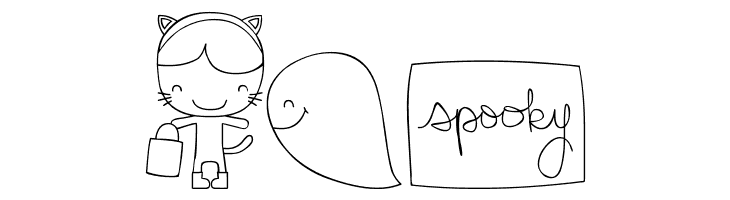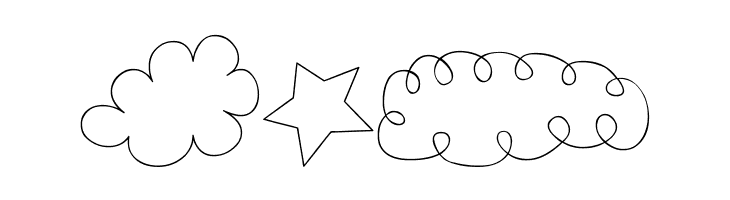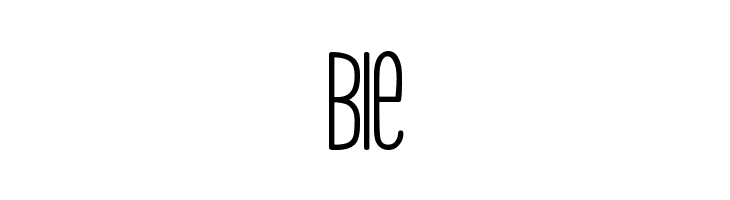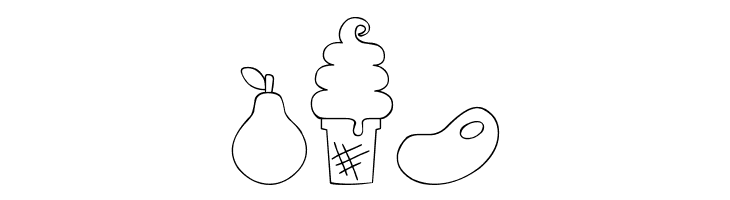
• MTF Rhesa
A playful, casual handwritten font with irregular, whimsical letterforms.
• MTF Skinny Jeans
A tall, narrow font with elongated, thin characters for a sleek, modern look.
• MTF Sweet Cheeks
A playful and whimsical font with bold, rounded characters and a fun, informal style.
• MTF Sweet Dings
A playful font of sweet-themed dingbats with whimsical dessert and fruit icons.
• MTF Sweet Halloween Dings
A playful dingbat font with cute Halloween-themed illustrations.
• MTF Sweet Nature Dings
A whimsical dingbat font with nature-themed illustrations.
• MTF Sweet Sky Dings
A whimsical, sky-themed dingbat font with playful and airy designs.
• MTF Tamaras Husband
A playful, bold handwritten font with rounded edges and consistent strokes.
• MTF Toast
A playful, bold outline font with a three-dimensional look.
• MTF Toast
A bold, outlined font with a playful, three-dimensional effect.